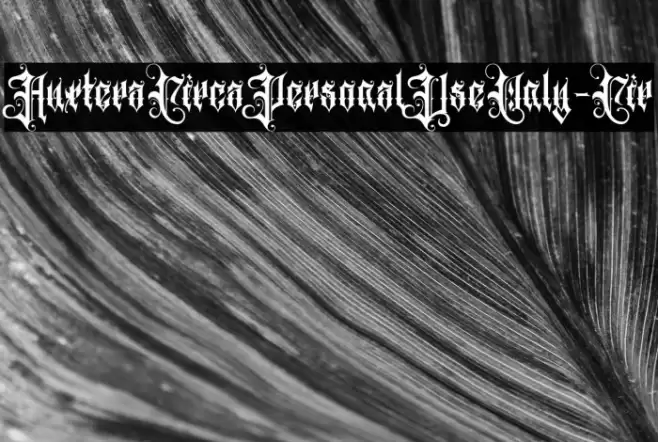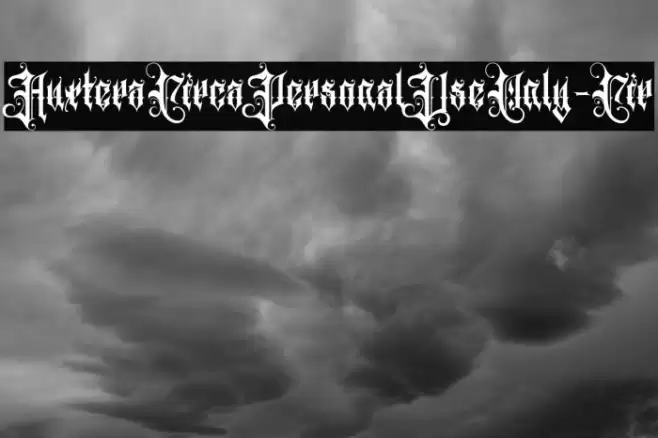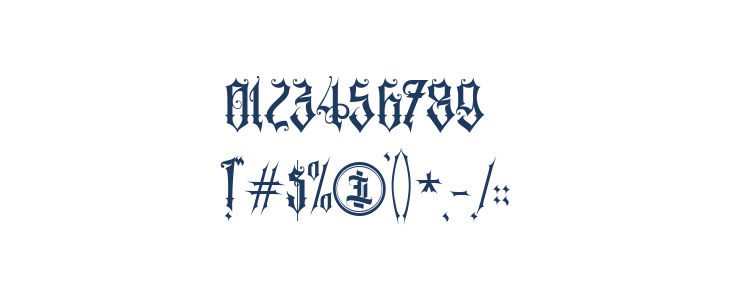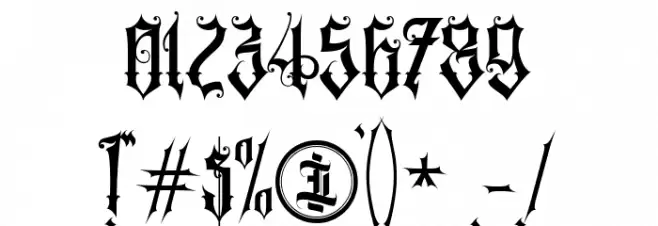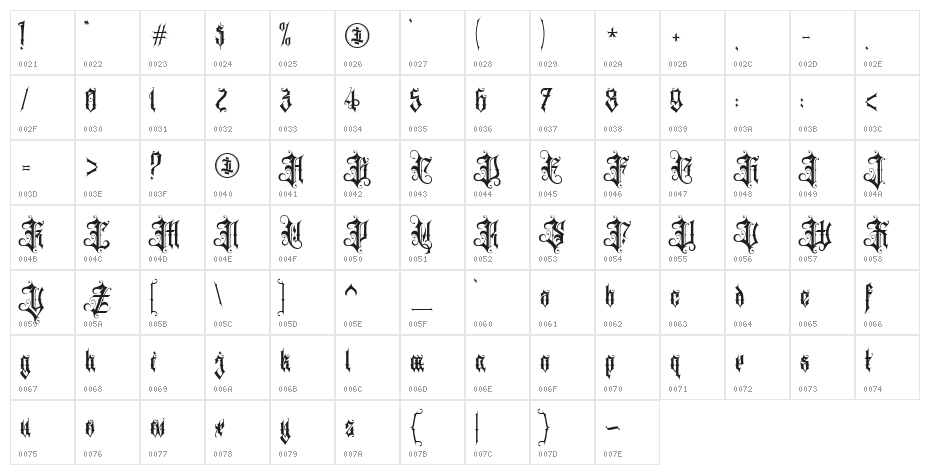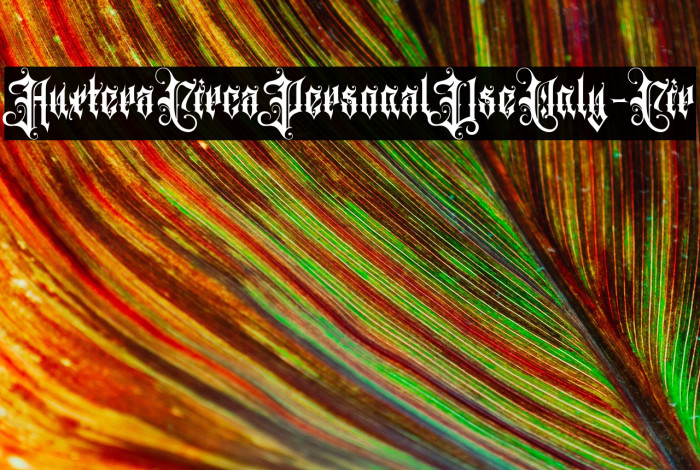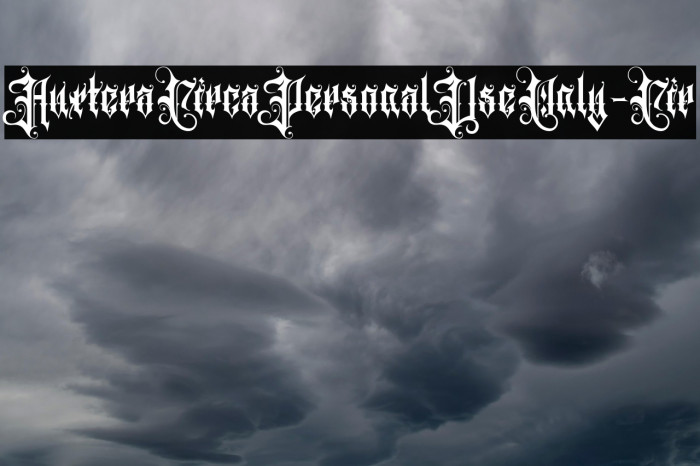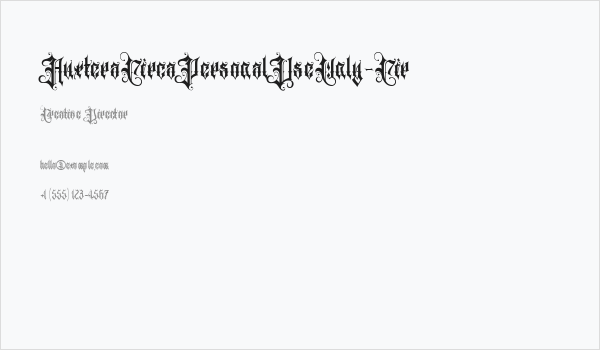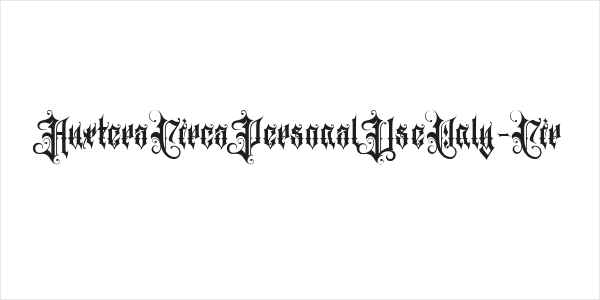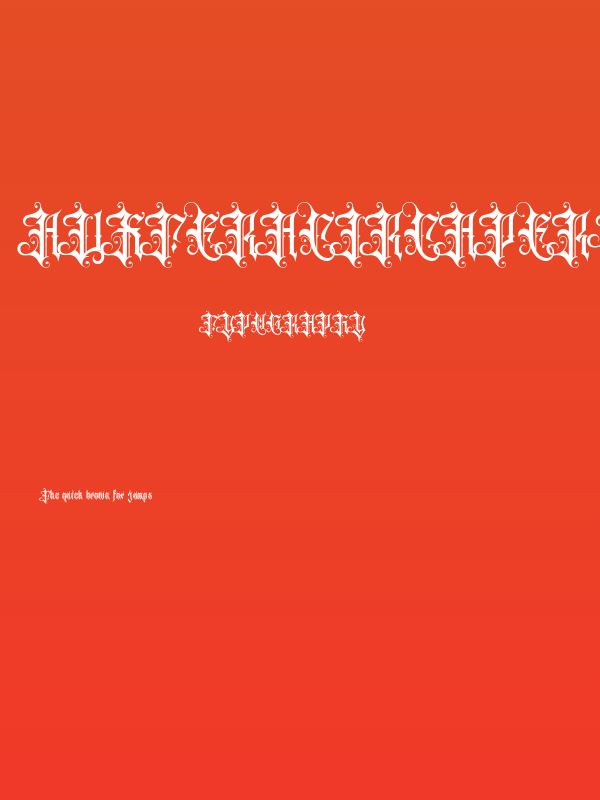
This font features a highly decorative and intricate design, reminiscent of traditional blackletter styles. The characters are ornate, with elaborate flourishes and sharp, angular lines that give it a gothic and medieval appearance. The uppercase letters are particularly embellished, with additional swirls and extensions that enhance their dramatic look. The lowercase letters maintain the same stylistic elements but are slightly more subdued in their ornamentation. The numerals and special characters follow the same aesthetic, ensuring a cohesive appearance across all glyphs. This font's unique style makes it stand out, capturing attention with its bold and artistic presentation.
An ornate blackletter font with gothic and medieval influences from Uncategorized fonts.
- Proposed Projects: Ideal for projects requiring a historical or dramatic flair, such as book covers, posters, or themed event invitations.